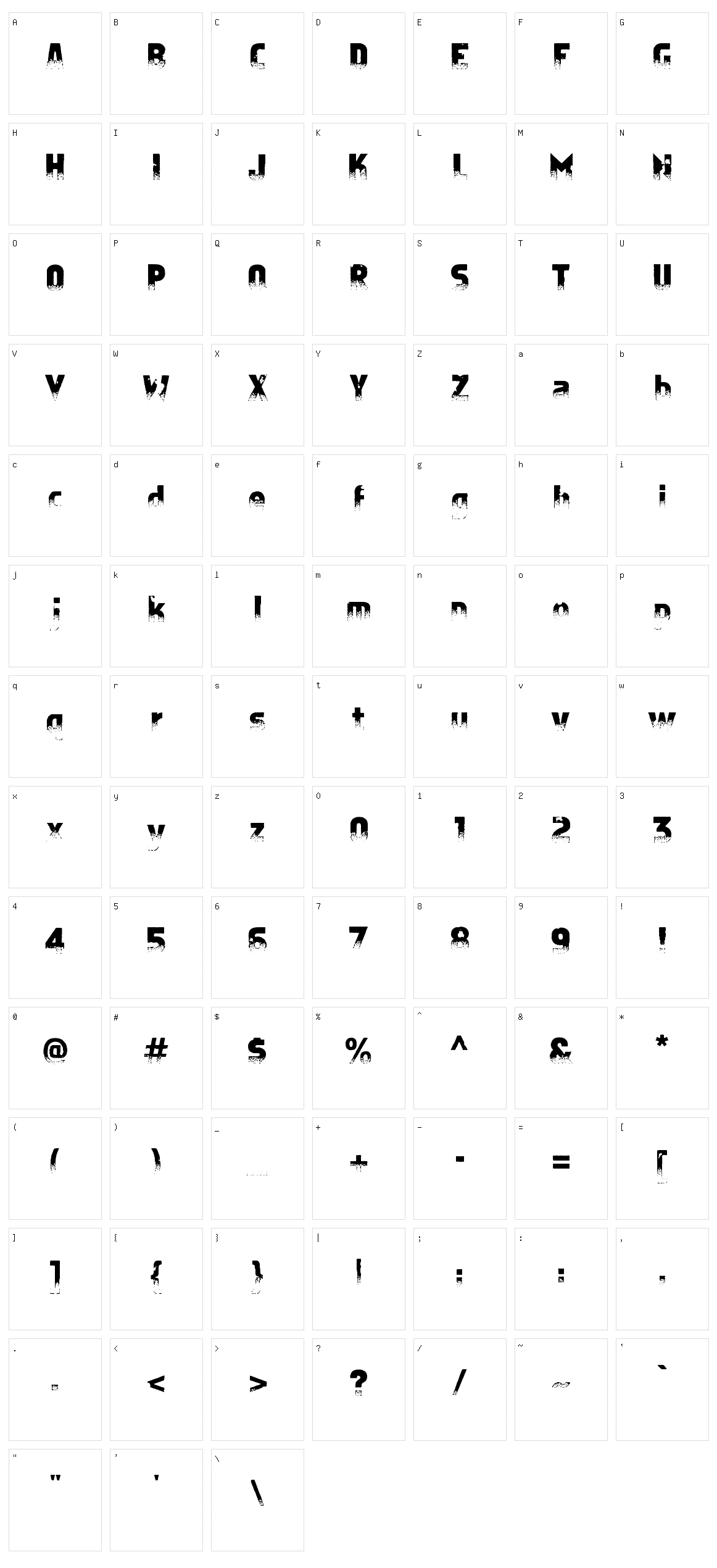
APOSTATE CANCER
A TrueType Font by S. John Ross
This month, I do what I always do when I'm a few days late with the free font: I return to the well of stress. This time around the stressing is doubled up, with both a bottom-side corrosion and some heavy random flaking going on. This is a font that's having a bad 8 years.
Apostate Cancer is a full-keyboard set with both upper- and lowercase, plus the usual scattered extras. Enjoy!